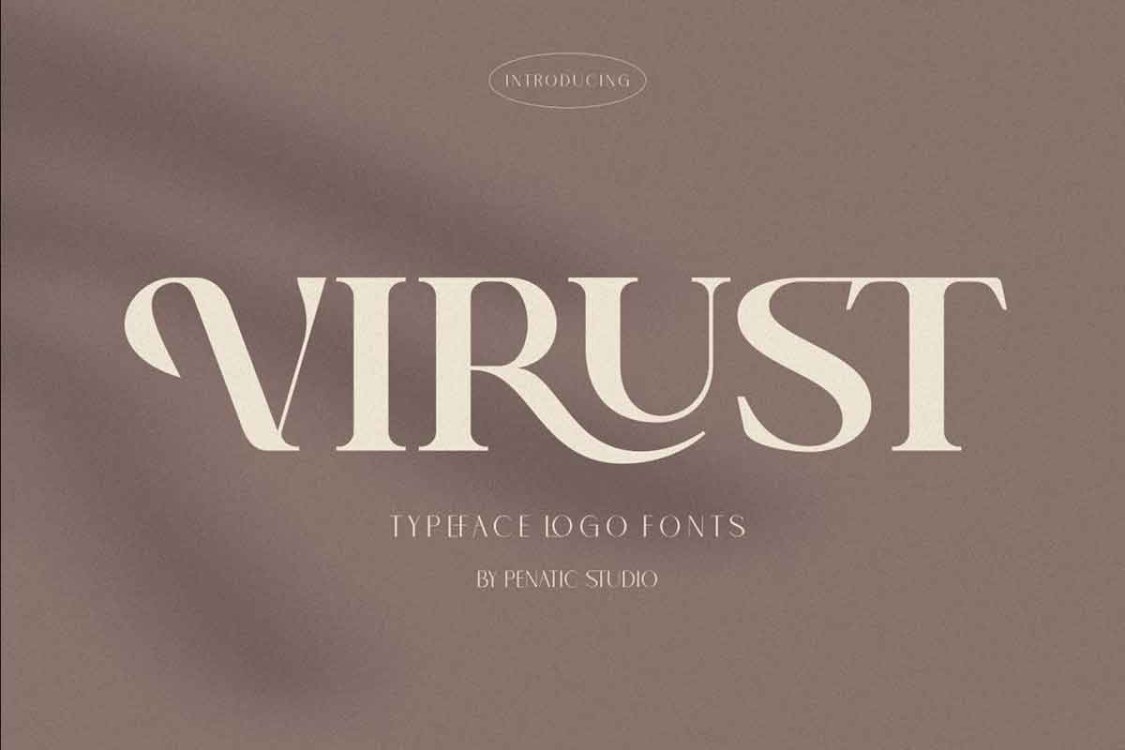
Virust Font
VIRUST is an excellent typeface for your logo and brand identity. Virust is designed to be smooth and slightly thick to look tough and able to stand on its own, with lots of alternatives and ligatures.
~ Unique Fonts Ligatures and Alternate
Where Virust Font works best
Virust Font gives long-form text a classic, trustworthy rhythm — ideal for magazine spreads, annual reports and book interiors.
Pair Virust Font with generous letter-spacing for wordmarks in fashion, hospitality, wine and jewellery branding.
Use Virust Font for slide titles in Keynote, PowerPoint or Google Slides to add authority without looking dated.
What is Virust Font good for?